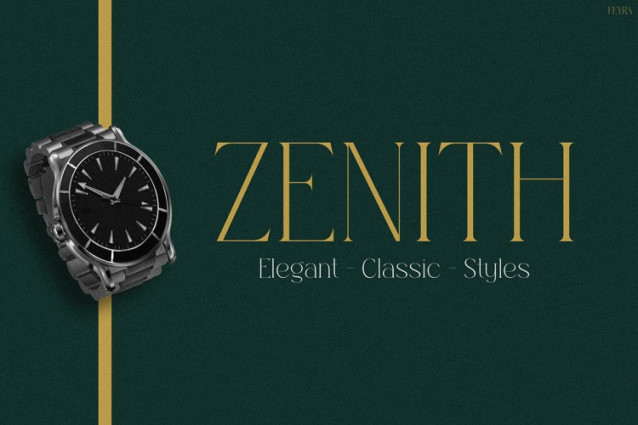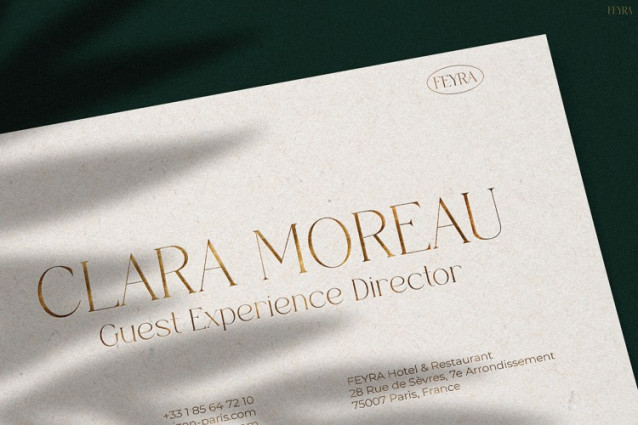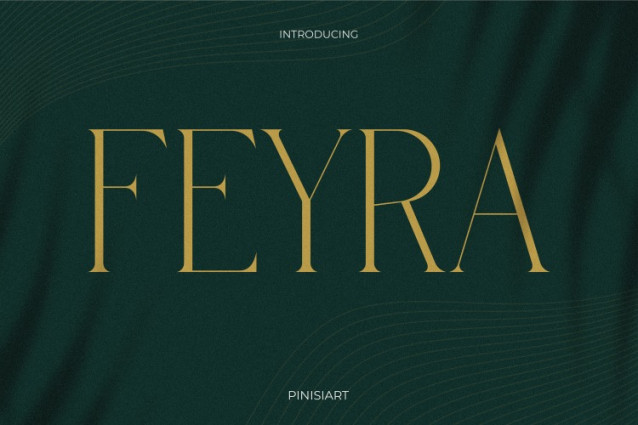
Feyra Font
Feyra Font is the perfect font for those who value elegance and clarity. With its tall letterforms and refined serifs, this typeface feels both classic and modern. As a result, it adds a premium look to any design. Whether you’re creating content for digital or print, Feyra helps you build visuals that are stylish and timeless.
What makes Feyra stand out is its balance of beauty and function. Its graceful curves and sharp details elevate text into something memorable. Additionally, each letter is crafted with precision, making it ideal for designs that need a luxurious touch. You can use it for large headlines or in more detailed visual compositions.
Moreover, Feyra works beautifully in clean and elegant layouts. When paired with neutral colors or minimalist imagery, the font truly shines. It creates contrast without being loud, which is why it’s a favorite among refined designers.